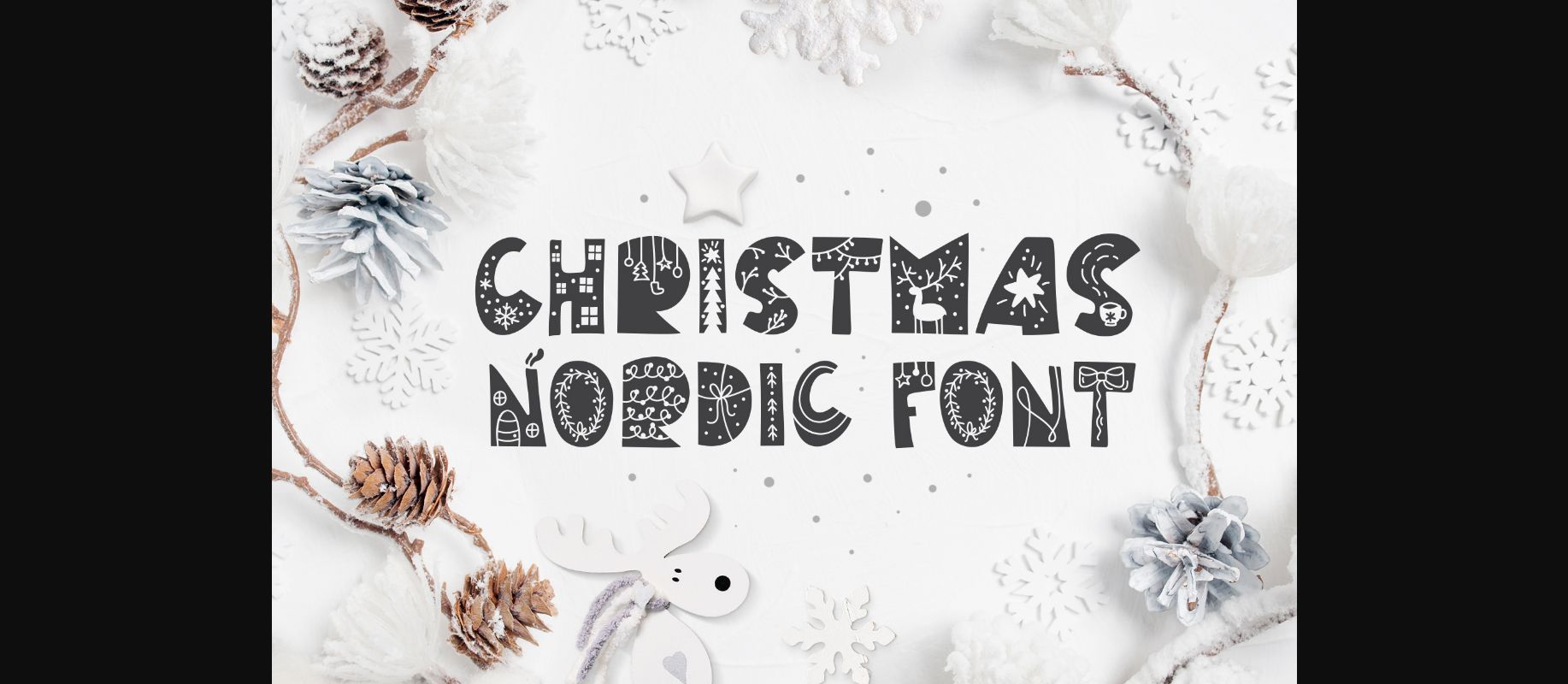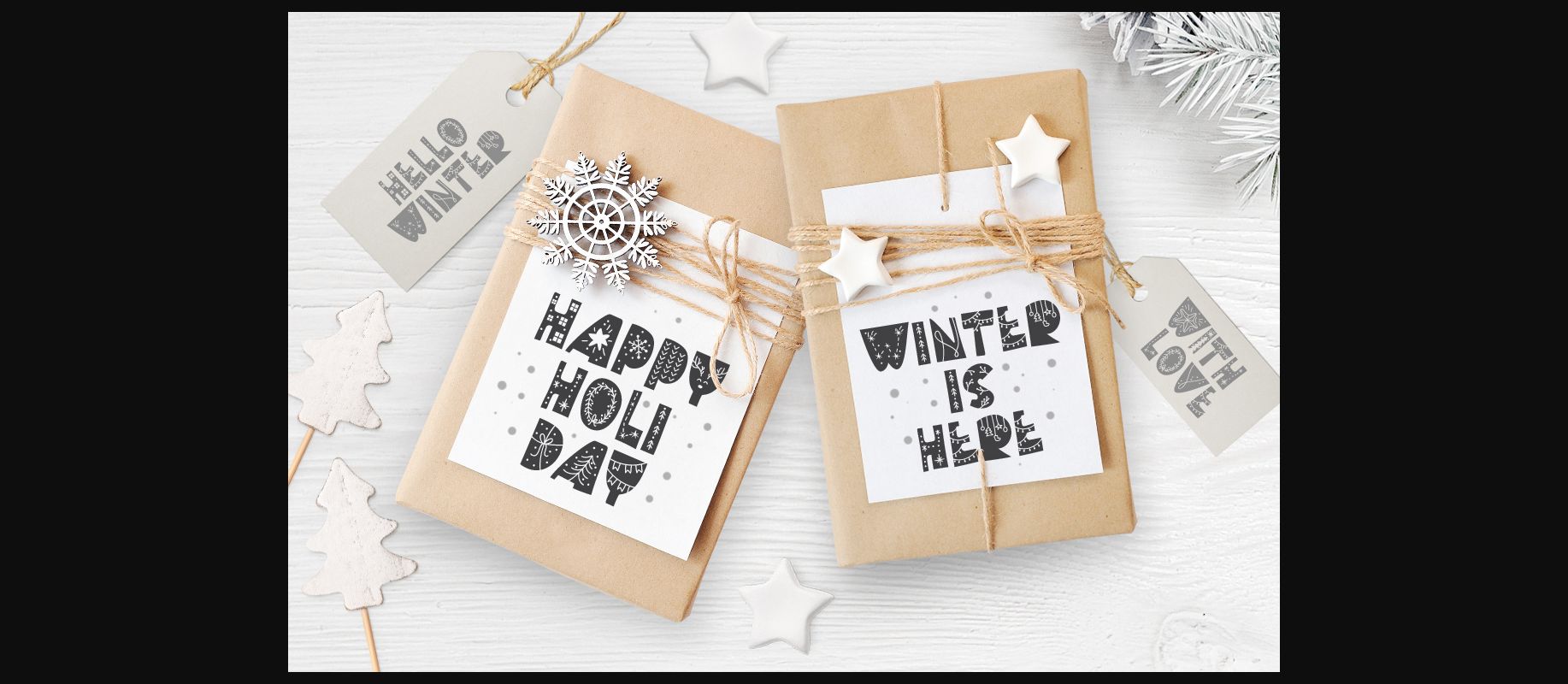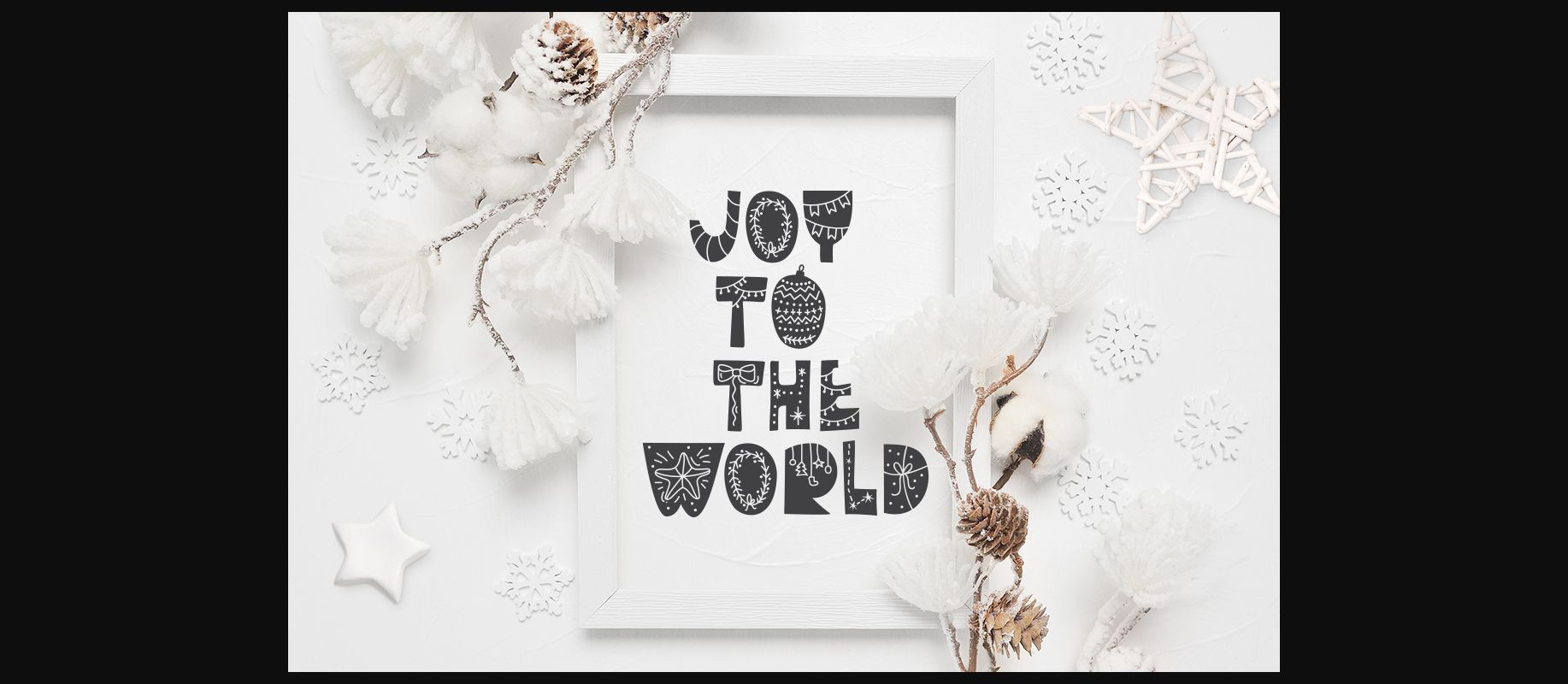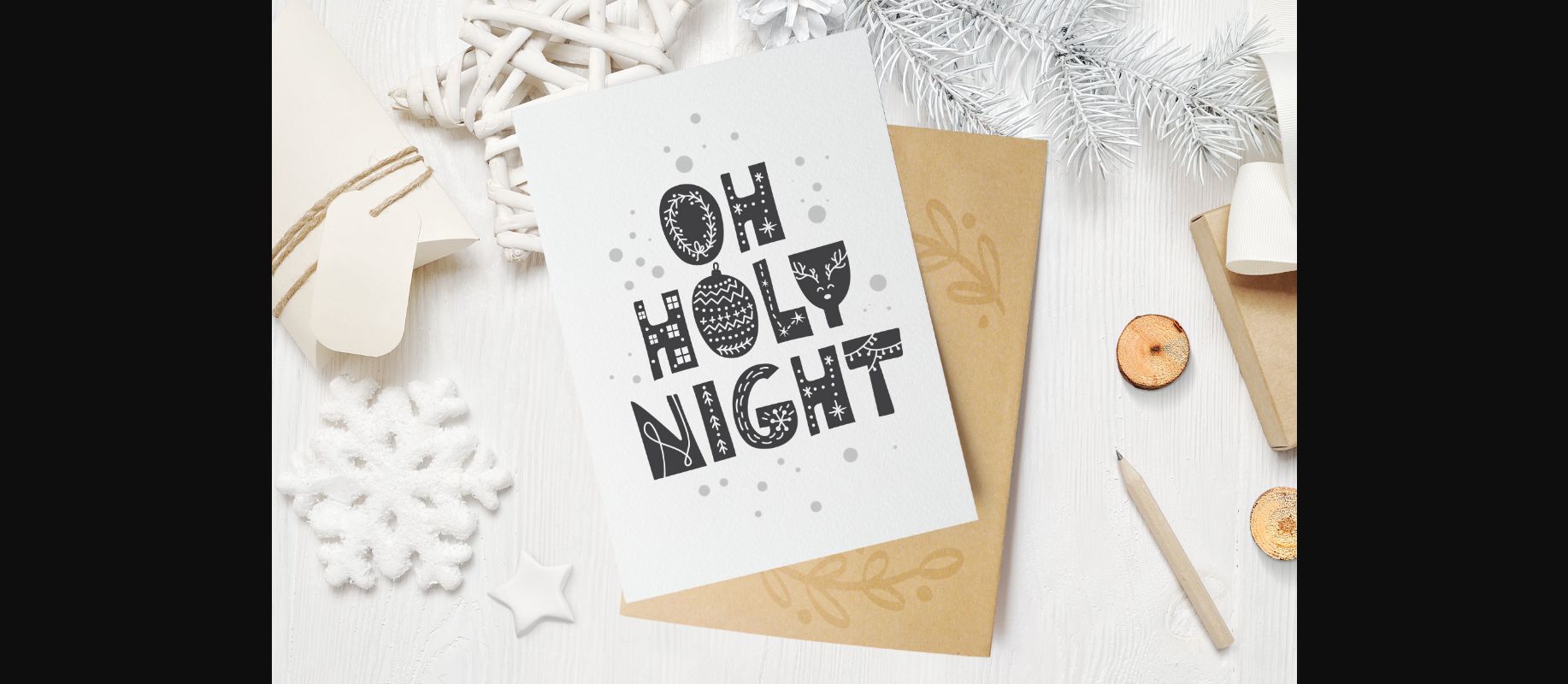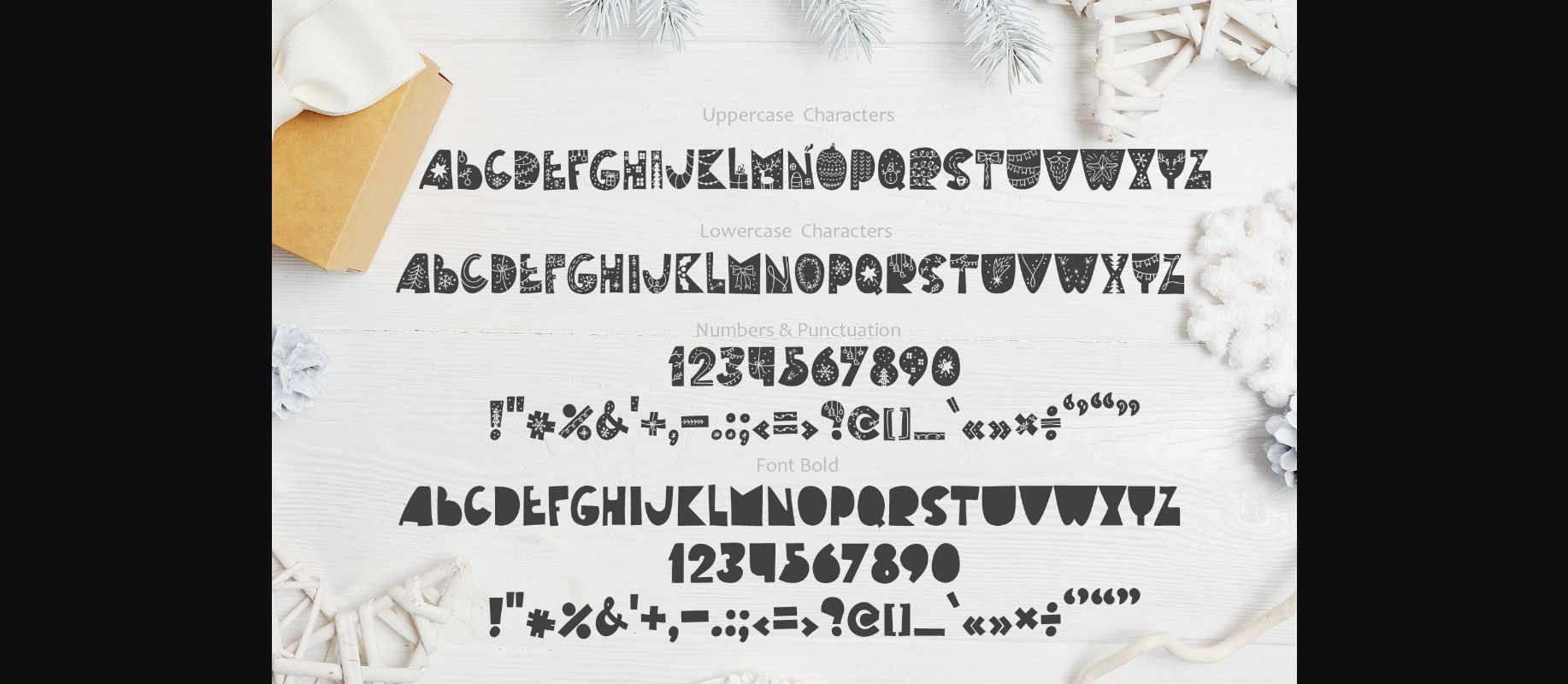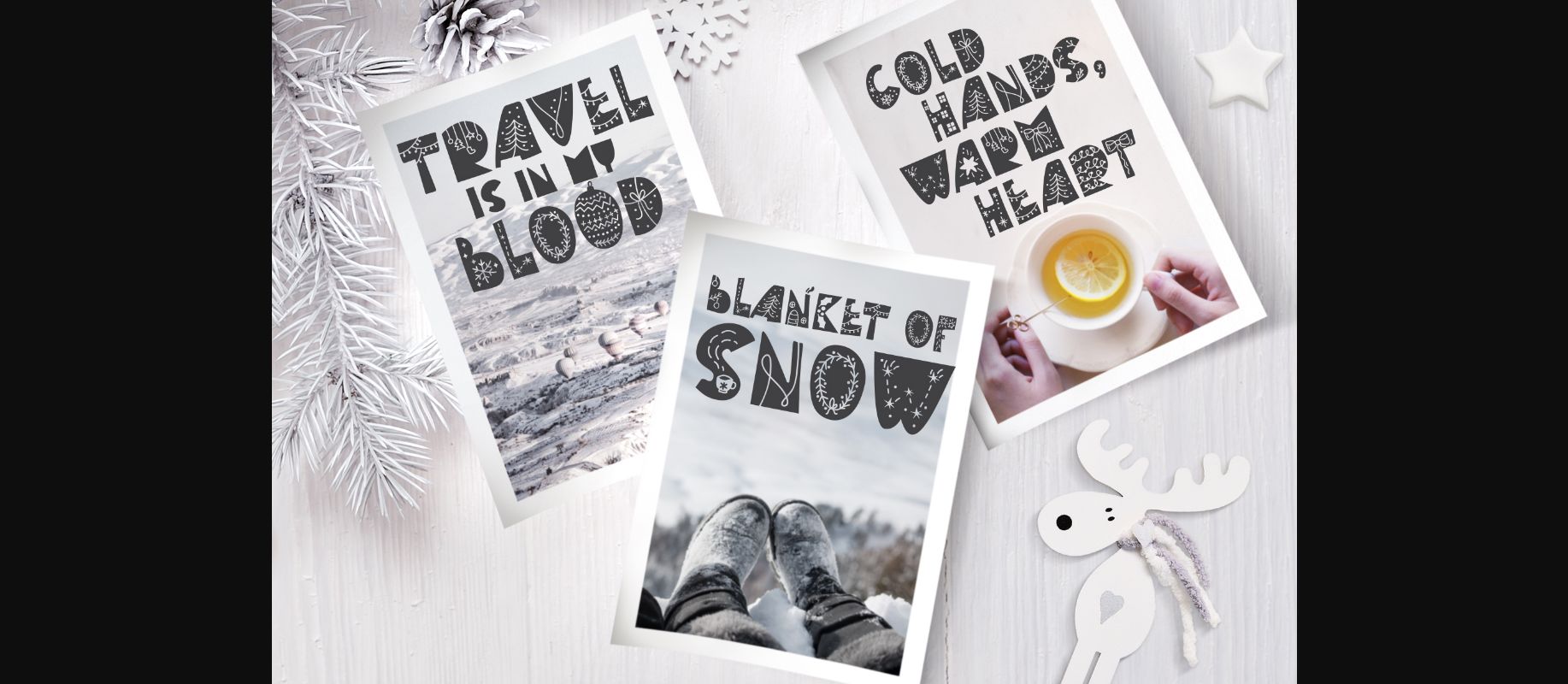
Christmas Nordic Font
About Christmas Nordic Font
Christmas Nordic is a fun and bold decorative font. This original look will appeal to a wide range of crafty ideas, from letterheads and titles to stationery.